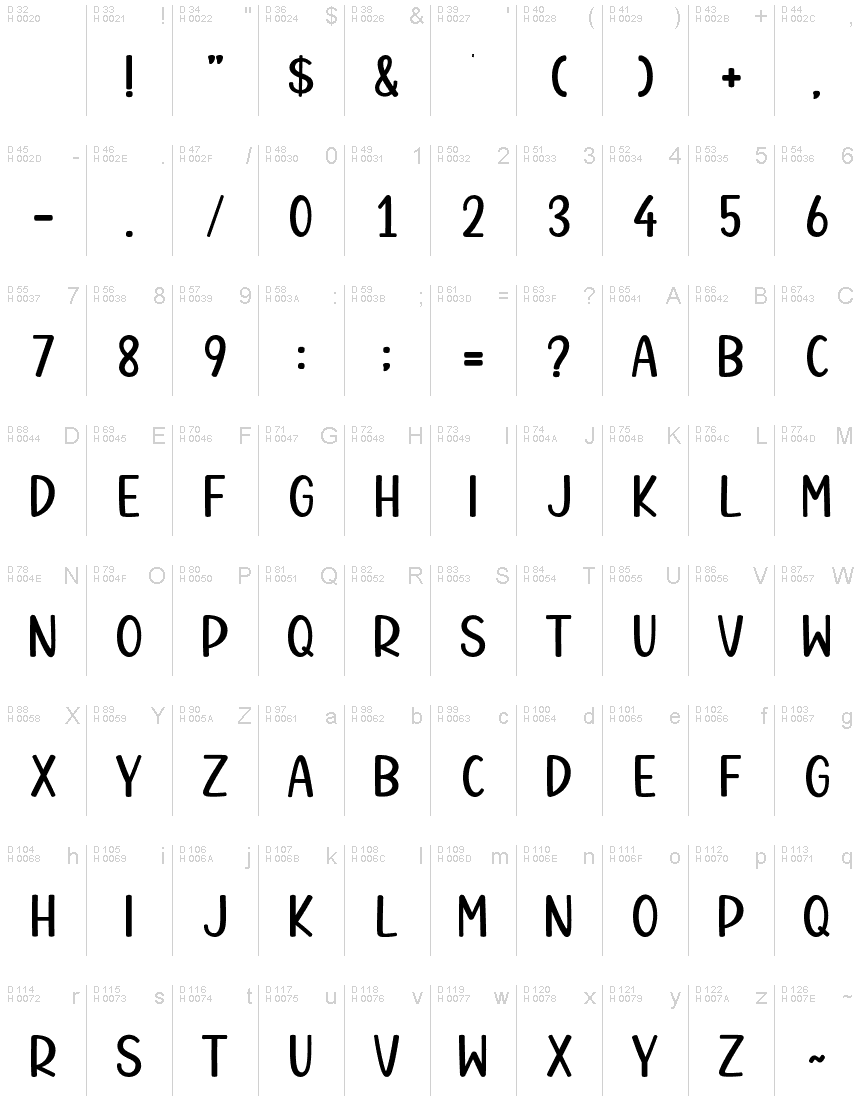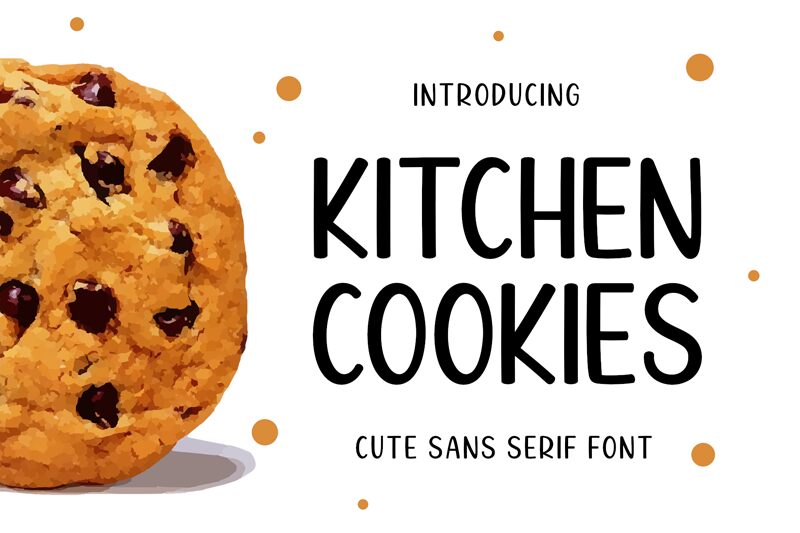
Kitchen Cookies
Kitchen Cookies by AV Type brings a dash of whimsy and warmth to the display font family. Its comic style infuses text with a playful, inviting charm that's reminiscent of casual handwriting found on a baker's note or a friendly invitation to a home-cooked meal. The semi-condensed width of Kitchen Cookies makes it stand out in an array of creative projects without overwhelming the senses.
Crafted with an eye for fun, this font is perfect for designs that call for a personal touch, from party invitations and greeting cards to quirky branding and packaging. Kitchen Cookies' rounded edges and buoyant character shapes give it an aesthetic appeal that's as deliciously enticing as its namesake suggests.
Whether you're looking to add personality to your project or aiming for design that captures the comfort of home, Kitchen Cookies offers versatility in its unique blend of casual comic flair and semi-condensed efficiency.